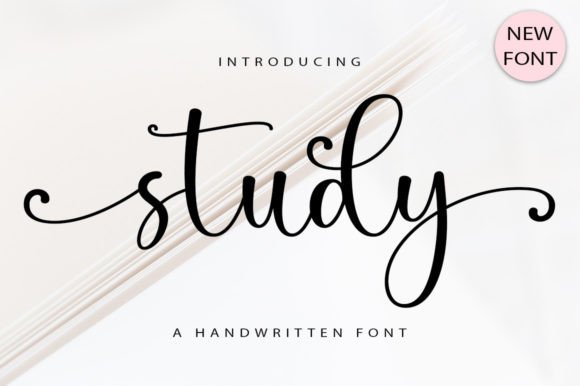
Introducing Study Font, an exquisite script font that will captivate your senses and elevate your designs to new heights. Immerse yourself in its graceful strokes, crafted with precision and passion by Wahyu Studio.
Study Font is more than just a font; it's an expression of elegance, sophistication, and timeless style. Its flowing lines and delicate curves will add a touch of refinement to your creative projects, leaving a lasting impression on your audience.
With Study Font, the possibilities are endless. Its versatility shines through in various applications, from eye-catching logos and branding to enchanting wedding invitations and heartfelt personal letters. Let your imagination soar as you explore the boundless realm of creativity with this remarkable font.
As a signature font, Study Font stands tall, exuding an air of confidence and individuality. Its unique design makes it the perfect choice for personalizing your digital world. Elevate your social media presence, craft unforgettable blog posts, or design stunning email campaigns that leave a lasting impression.
Study Font is not just a font; it's a gateway to a world of beauty and inspiration. Its timeless charm will add a touch of elegance and sophistication to any project, ensuring that your creations stand out from the crowd.
Embrace the beauty and versatility of Study Font and watch your creative visions come to life. Let your imagination run wild as you craft designs that captivate and inspire, leaving a lasting legacy of elegance and grace.